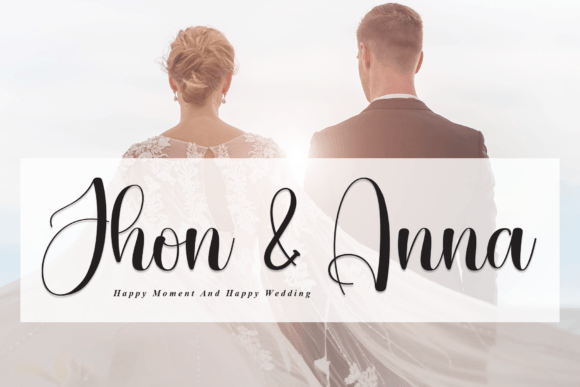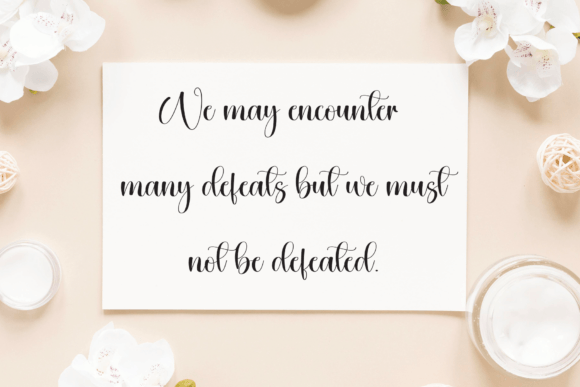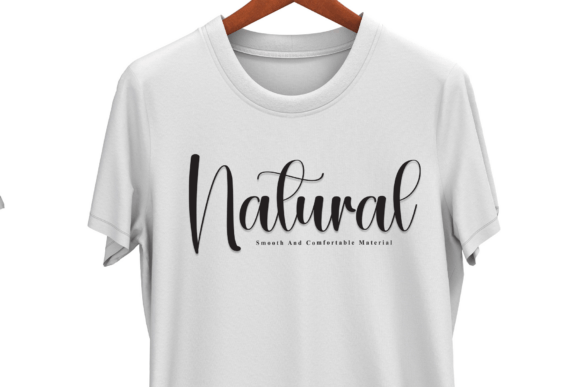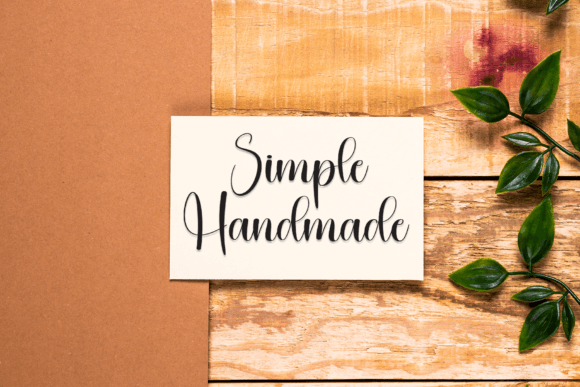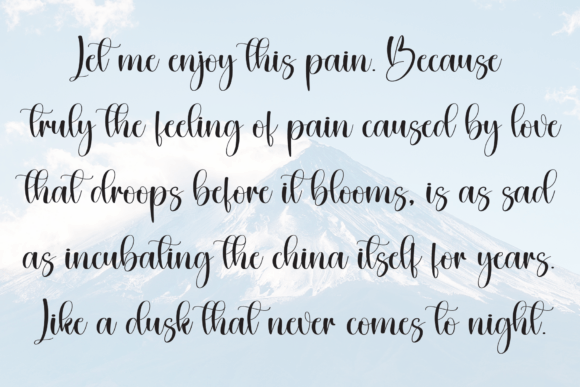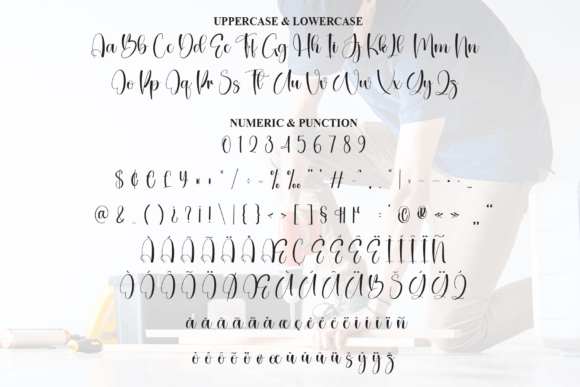
Introducing Handyman Font: Elevate Your Designs with Elegant Handwriting
Are you a designer or crafter looking for a font that adds a touch of sophistication and personality to your work? Look no further than Handyman Font, a stylish and flowing script font that mimics beautiful handwriting. With its elegant curves and smooth lines, Handyman Font is perfect for creating stunning invitations, logos, and creative designs that stand out from the crowd.
The Characteristics of Handyman Font
Handyman Font is a unique and versatile font that boasts a range of characteristics that make it ideal for various design applications. Some of its key features include:
- Elegant Curves: Handyman Font features smooth, flowing curves that give it a luxurious and sophisticated feel.
- Script Style: The font’s script style is reminiscent of beautiful handwriting, making it perfect for designs that require a personal touch.
- Simple yet Eye-Catching: Despite its elegant appearance, Handyman Font is surprisingly simple to read and understand, making it perfect for designs that require a clear message.
Uses for Handyman Font
Handyman Font is an incredibly versatile font that can be used in a wide range of design applications. Some of the most popular uses for the font include:
- Invitations: Whether you’re planning a wedding, birthday party, or other special occasion, Handyman Font is the perfect choice for creating beautiful and elegant invitations.
- Logos: If you’re looking for a font that will help your brand stand out, Handyman Font is an excellent choice. Its unique and stylish appearance makes it perfect for creating memorable logos.
- Creative Designs: From brochures and flyers to posters and social media graphics, Handyman Font is a great choice for any design project that requires a touch of elegance and sophistication.
Why Choose Handyman Font?
With so many fonts available, why should you choose Handyman Font for your design projects? Here are just a few reasons why Handyman Font stands out from the crowd:
- Unique Appearance: Handyman Font has a unique and stylish appearance that will help your designs stand out from the crowd.
- Ease of Use: Despite its elegant appearance, Handyman Font is surprisingly simple to use and read, making it perfect for designs that require a clear message.
- Versatility: Handyman Font can be used in a wide range of design applications, from invitations and logos to creative designs and more.
Tips for Using Handyman Font
To get the most out of Handyman Font, here are a few tips to keep in mind:
- Use it Sparingly: While Handyman Font is a beautiful font, it can be overwhelming if used too much. Use it sparingly to create a sense of elegance and sophistication.
- Pair it with Other Fonts: Handyman Font pairs well with a range of other fonts, from simple sans-serif fonts to more elaborate script fonts. Experiment with different pairings to find the one that works best for your design.
- Experiment with Colors: Handyman Font looks great in a range of colors, from bold and bright to soft and pastel. Experiment with different colors to find the one that works best for your design.
Handyman Font is a stylish and flowing script font that is perfect for designers and crafters looking to add a touch of elegance and sophistication to their work. With its elegant curves, smooth lines, and simple yet eye-catching appearance, Handyman Font is ideal for creating stunning invitations, logos, and creative designs. Whether you’re a seasoned designer or just starting out, Handyman Font is a great choice for any design project that requires a little bit of personality and flair.